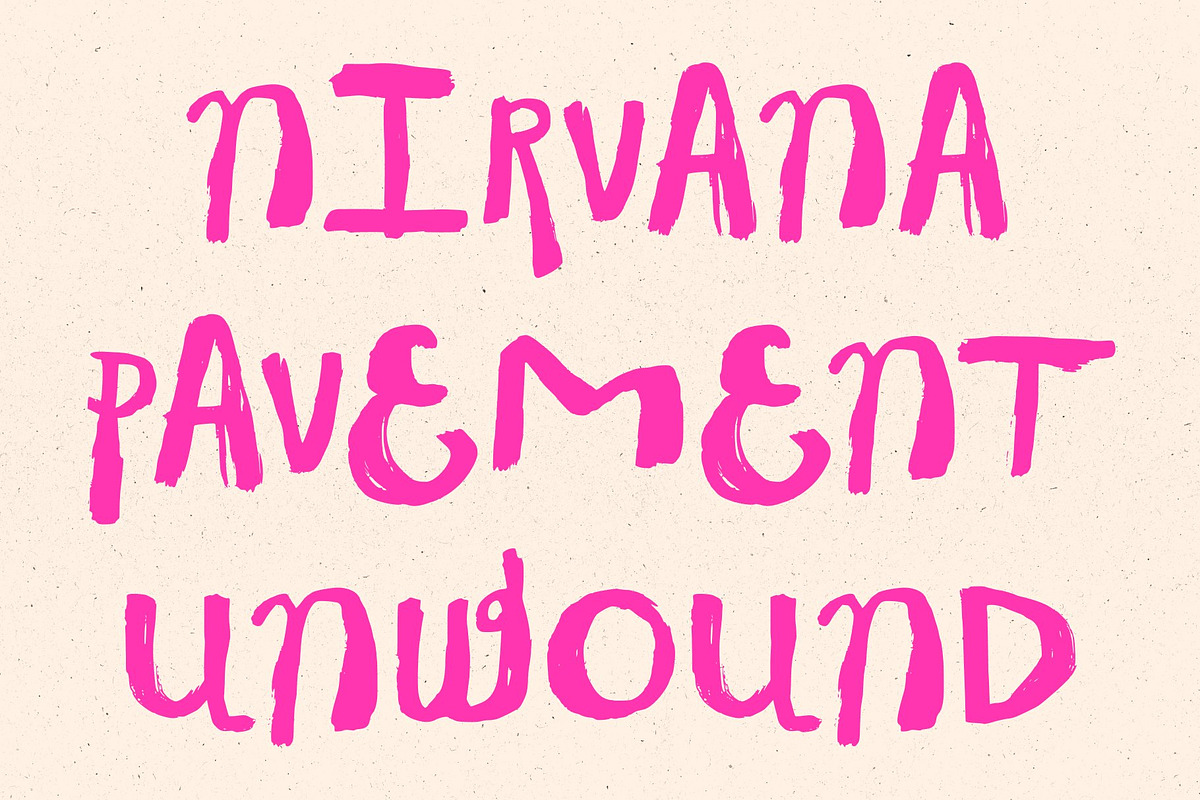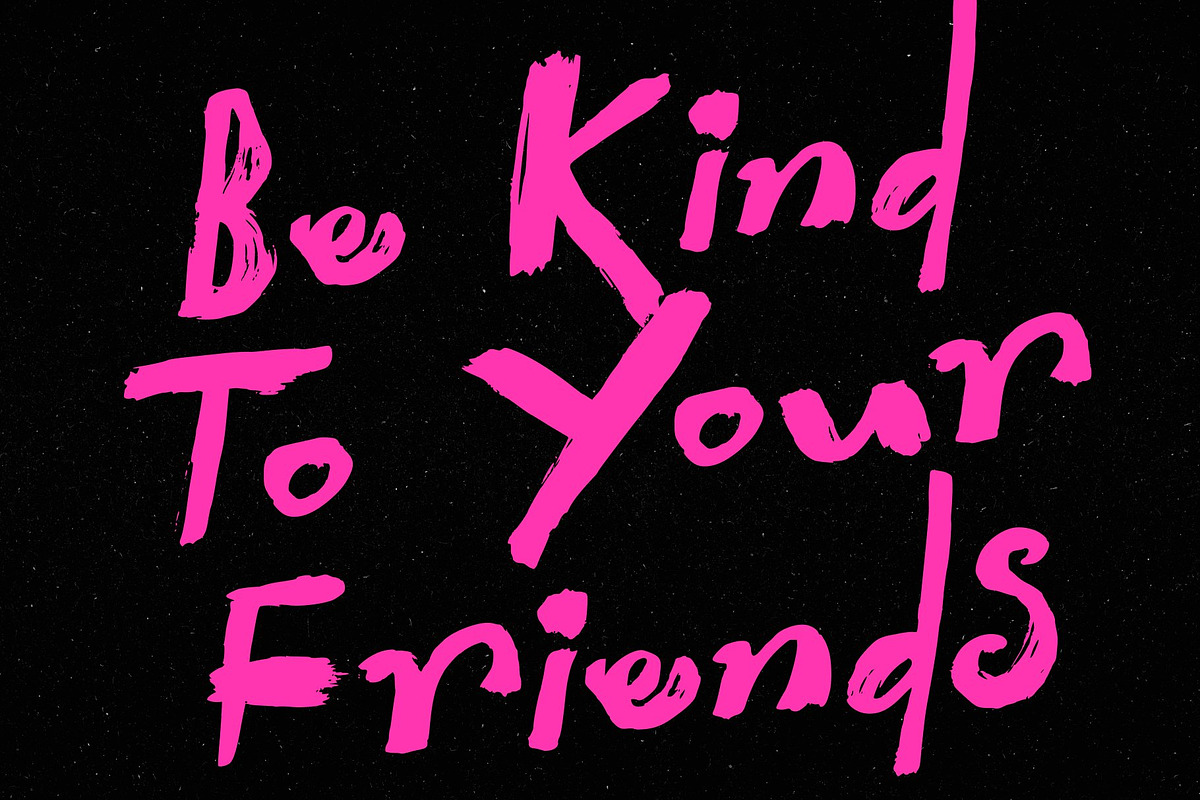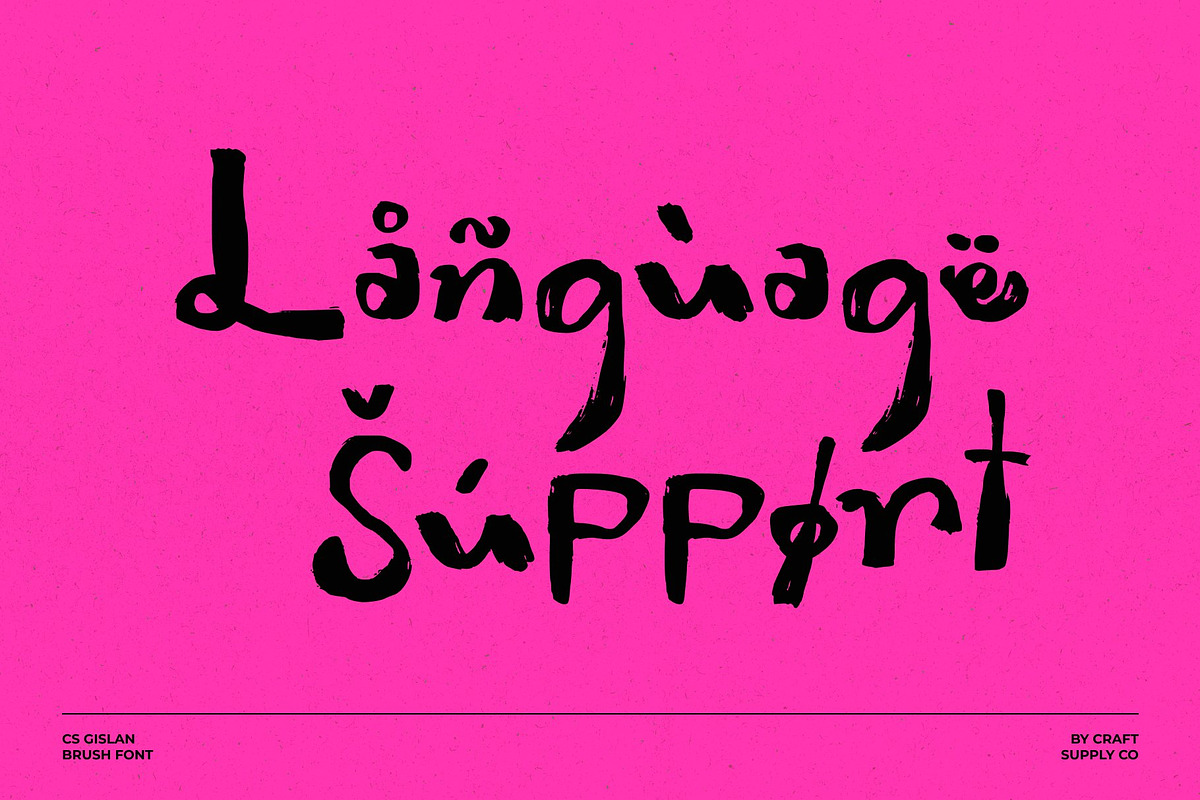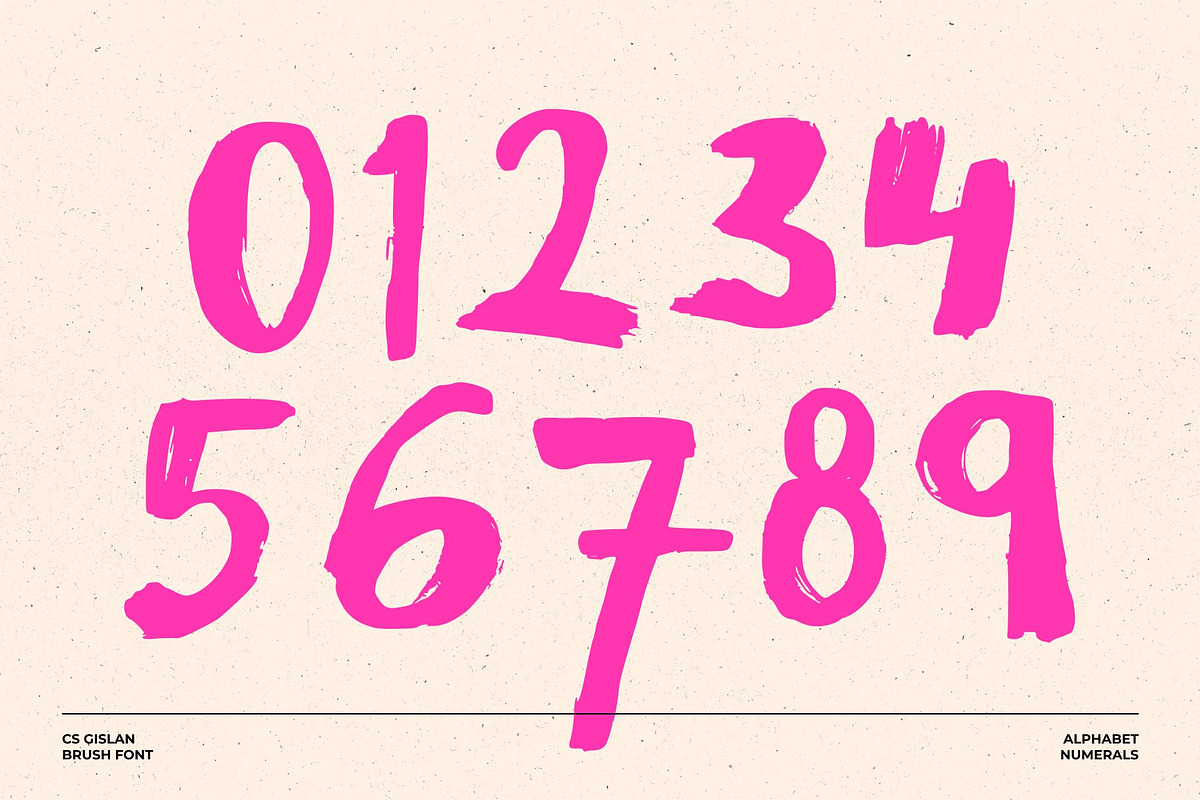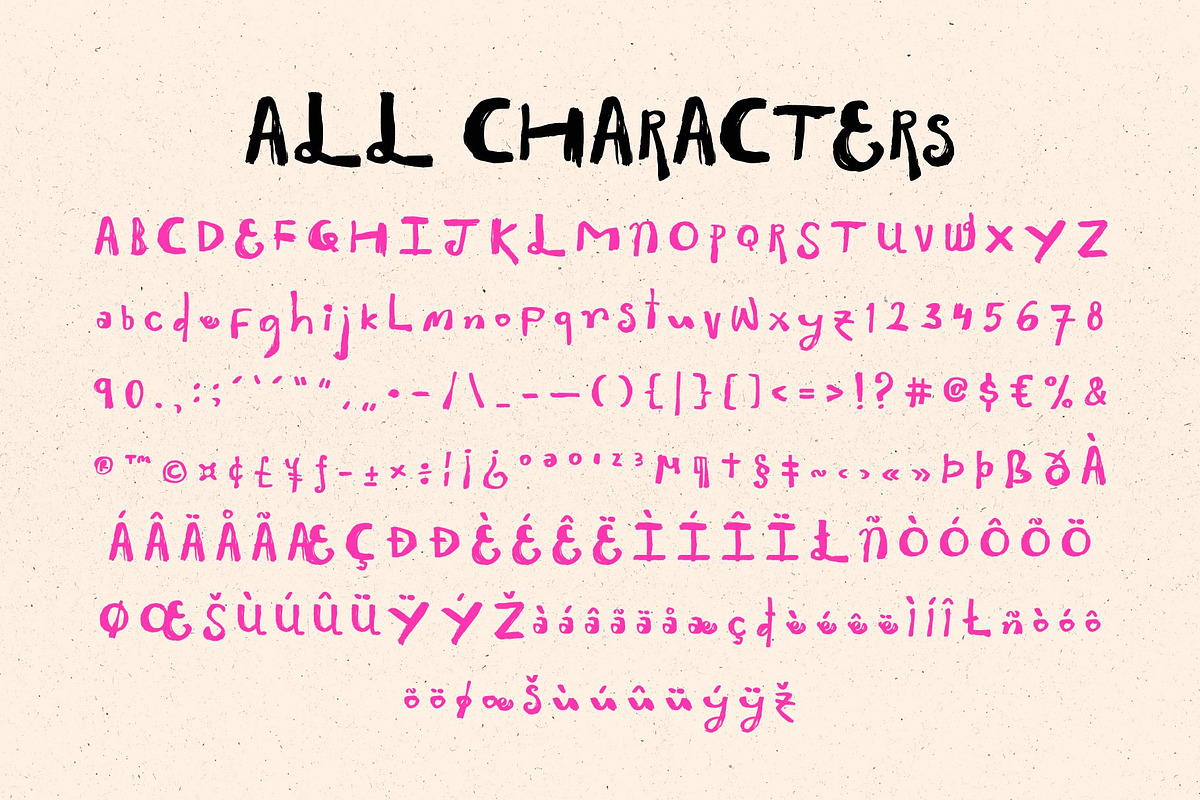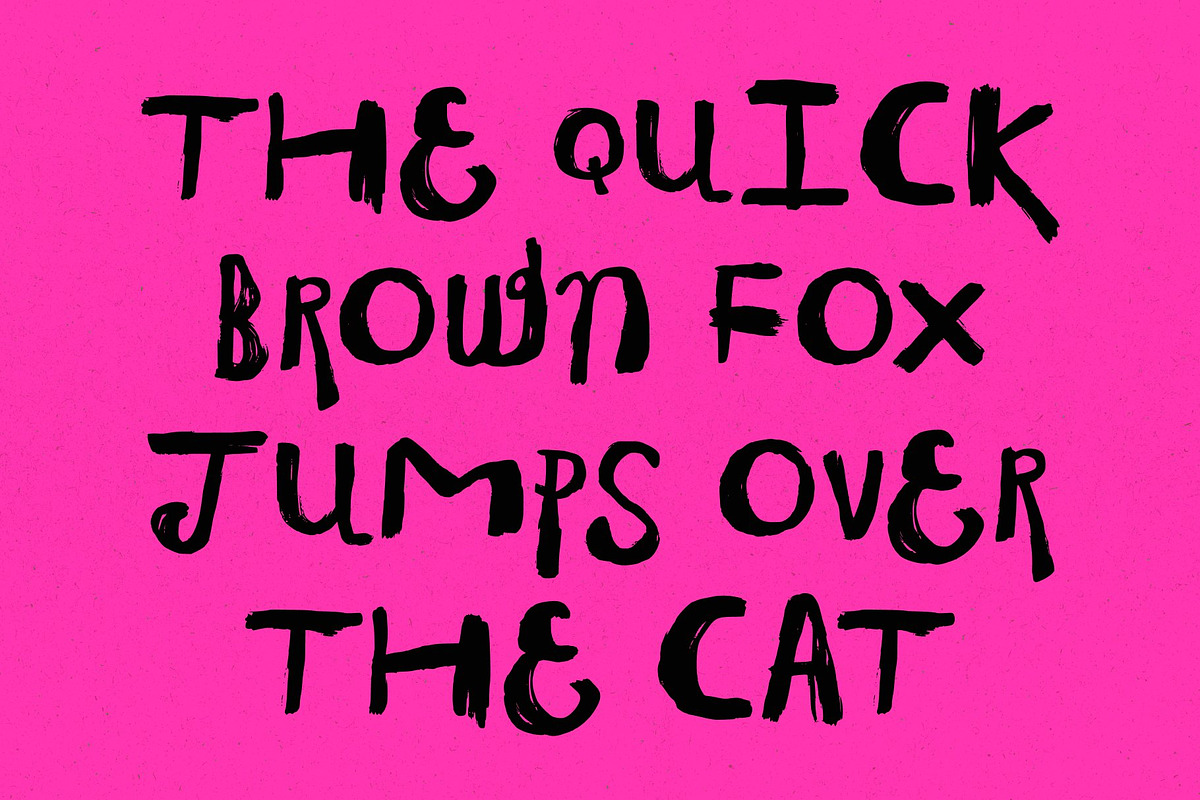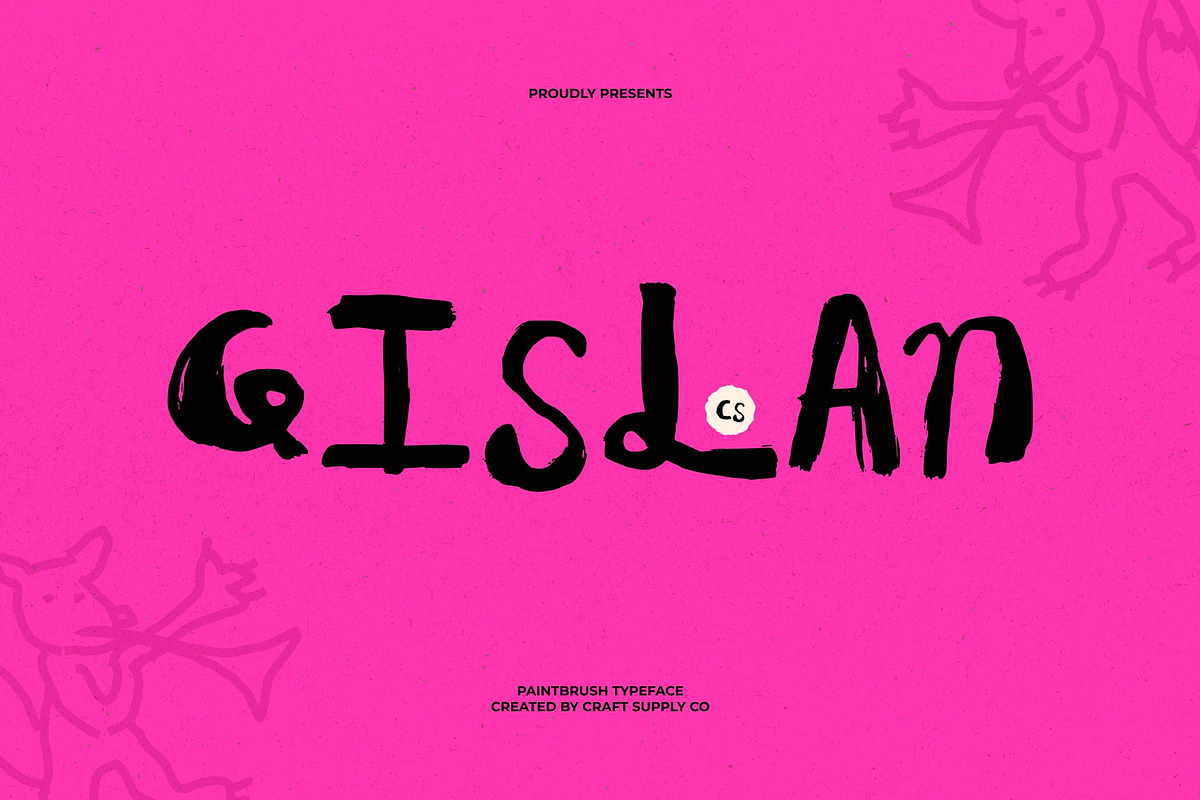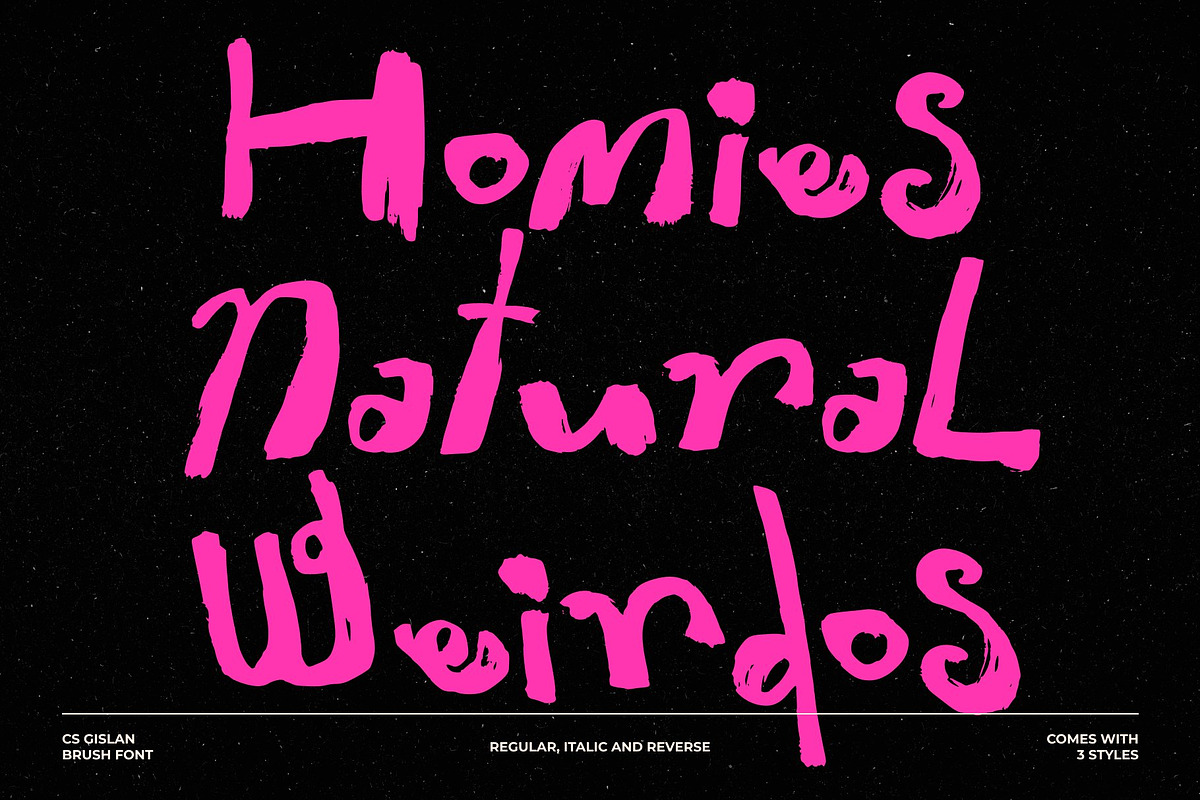
CS Gislan
This is a paintbrush display typeface inspired by loose brush strokes, sketchbook notes, and the quick expressive marks made at the end of a paintbrush. Created from real painted letterforms, this font embraces imperfection through a genuinely human process. Every glyph captures the raw energy of analog tools, translating authentic hand-painted gestures into a versatile digital format for modern designers.
Uneven edges, organic movement, and painterly details give the font a natural, human quality that feels spontaneous rather than polished. The strokes retain their original fluidity, showing subtle variations in density and pressure that mimic wet ink meeting paper. This genuine warmth prevents the typeface from feeling stiff, ensuring your typography always carries an authentic, tactile signature.
Equipped with robust OpenType features, the font maintains its natural rhythm across long words and short titles alike. Elevate your creative projects with a typeface that bridges the gap between digital precision and raw artistic expression, letting your headlines speak with undeniable personality and charm.
CS Gislan Regular
CS Gislan Italic
CS Gislan Reverse Italic